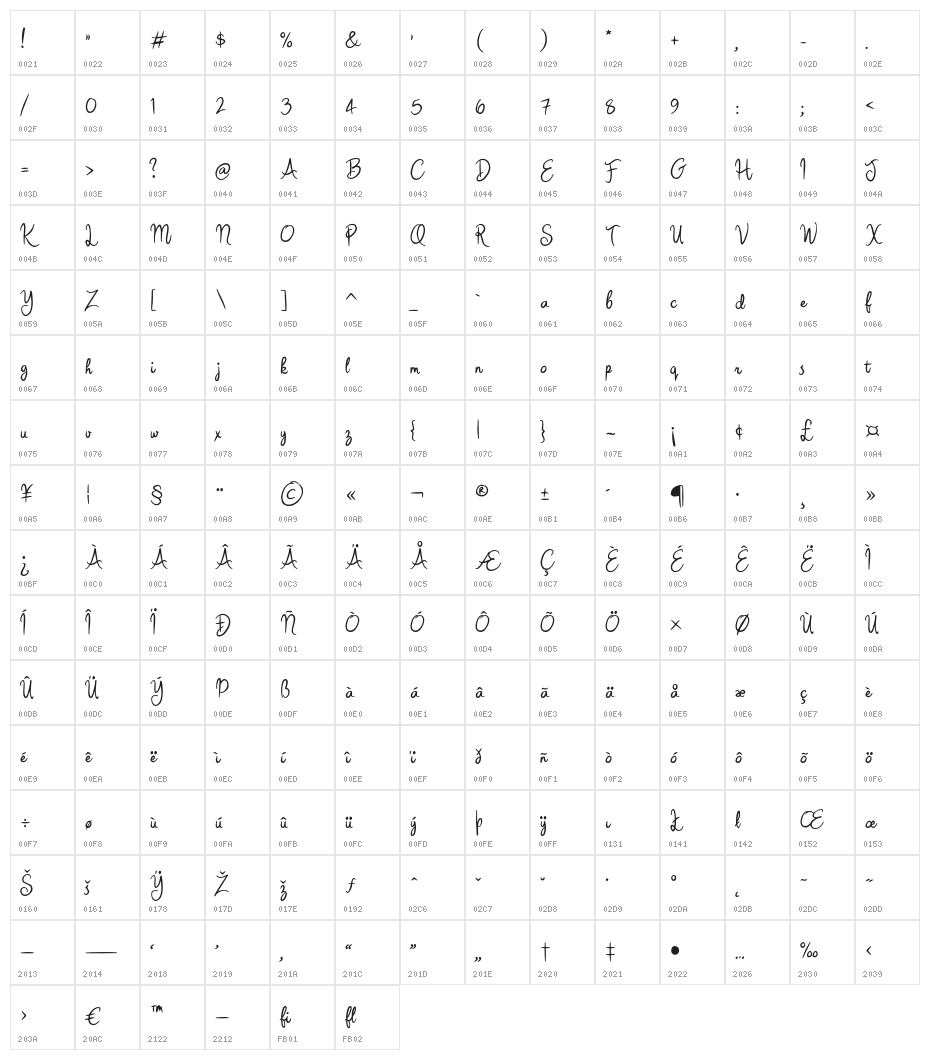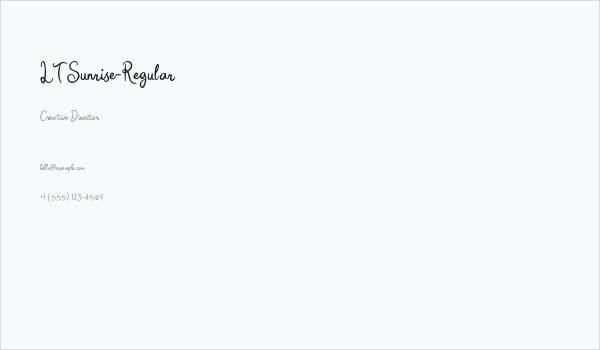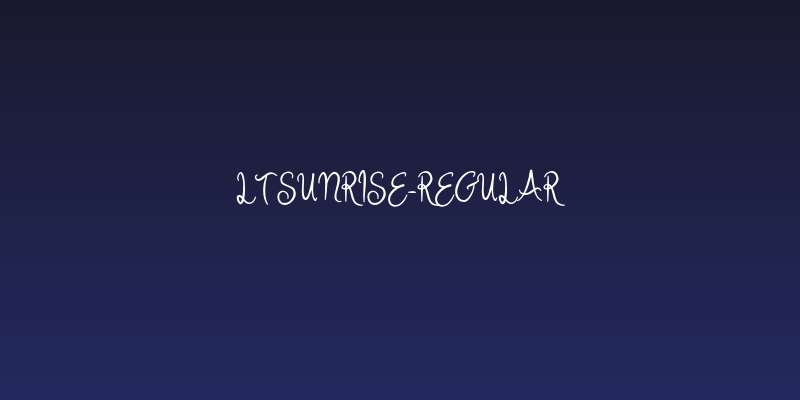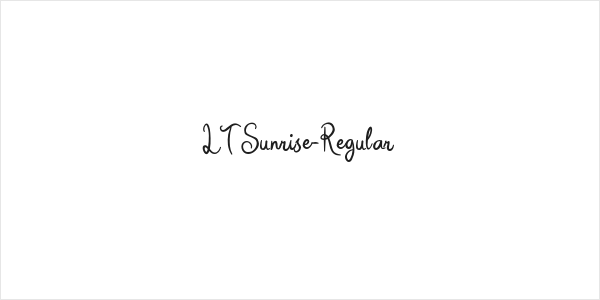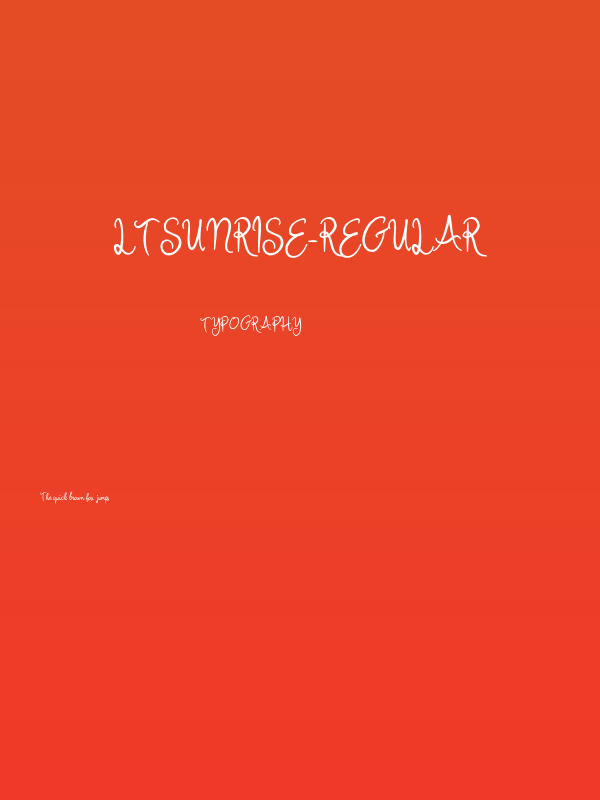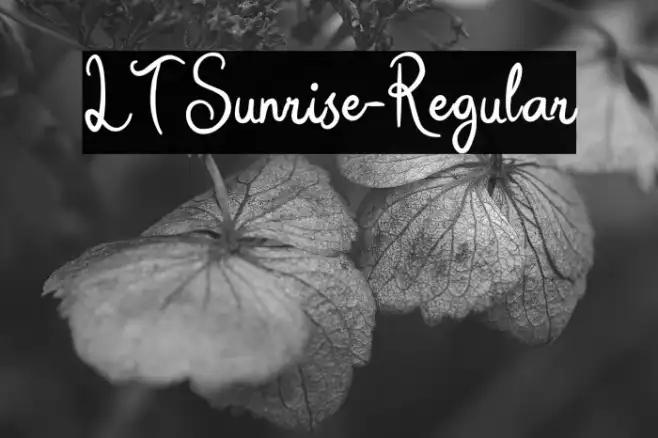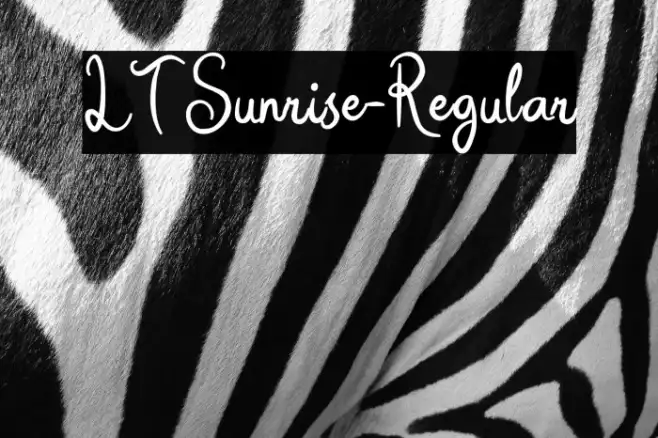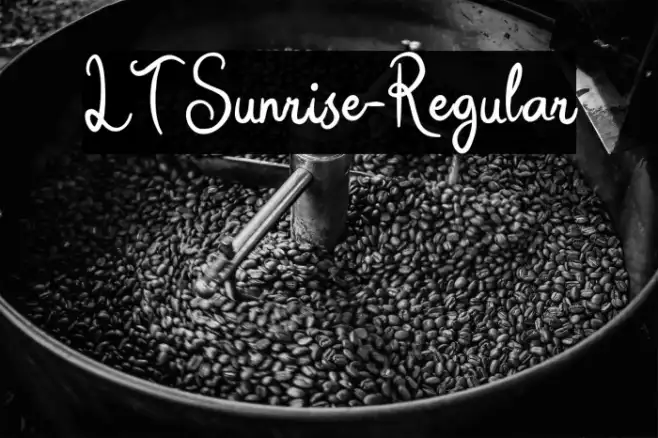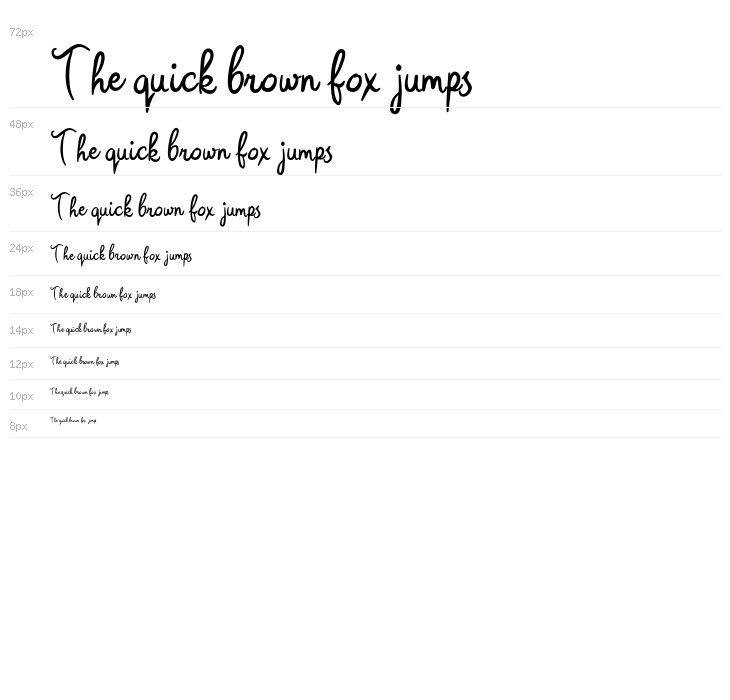
LTSunrise-Regular Font
LTSunrise-Regular Description
This font features a playful and whimsical script style, characterized by its flowing, cursive letters that convey a sense of elegance and creativity. The uppercase letters are bold and slightly exaggerated, with unique flourishes that add a touch of flair. The lowercase letters maintain a consistent flow, enhancing readability while retaining a casual, handwritten feel. Numbers are clear and distinct, matching the overall style of the alphabet. Special characters are well-integrated, ensuring versatility in various design contexts. The font's overall appearance is both artistic and approachable, making it suitable for a wide range of creative projects.
| Use Case | Logos, Invitations, Greeting cards |
| Proposed Projects | Ideal for invitations, greeting cards, branding, and creative design projects. |